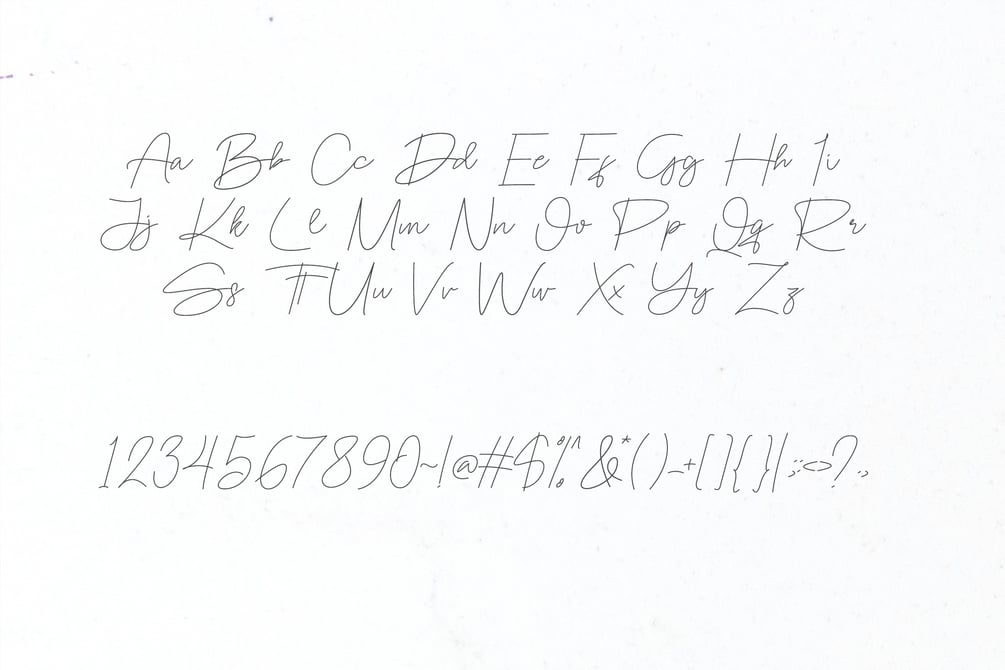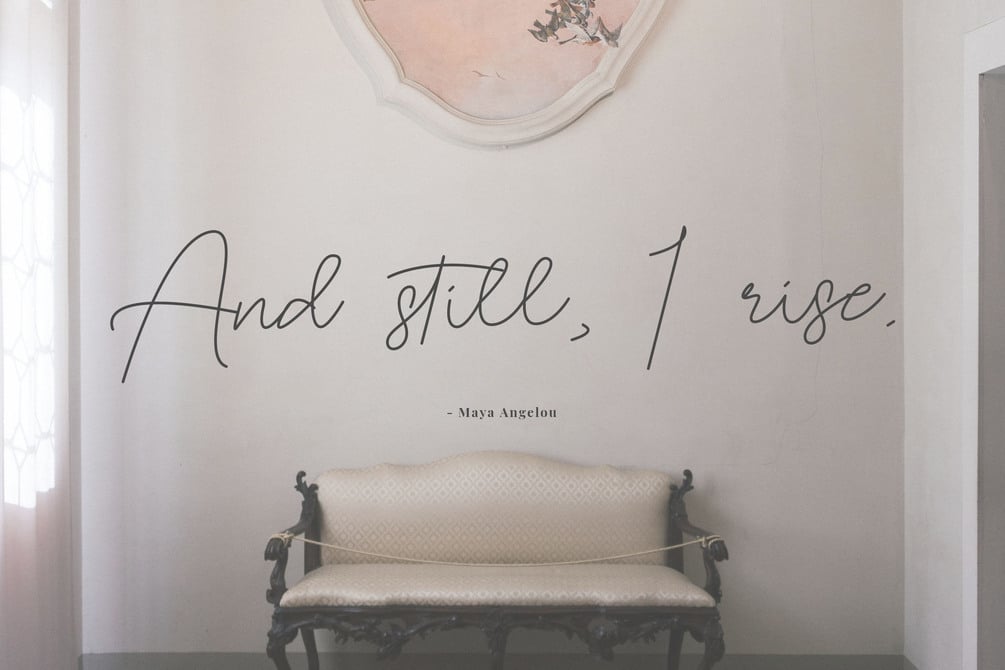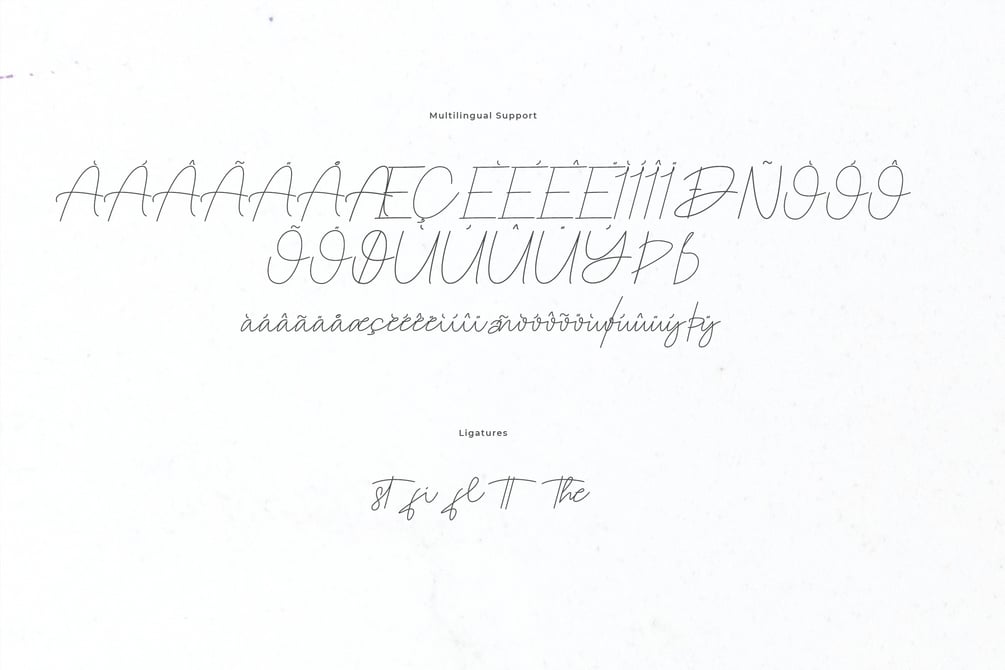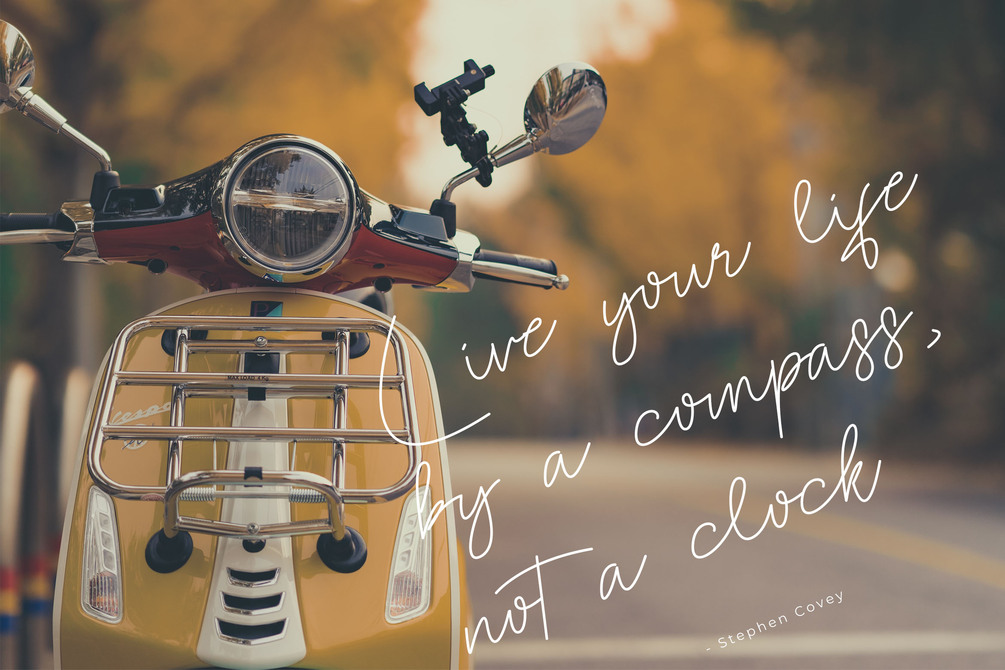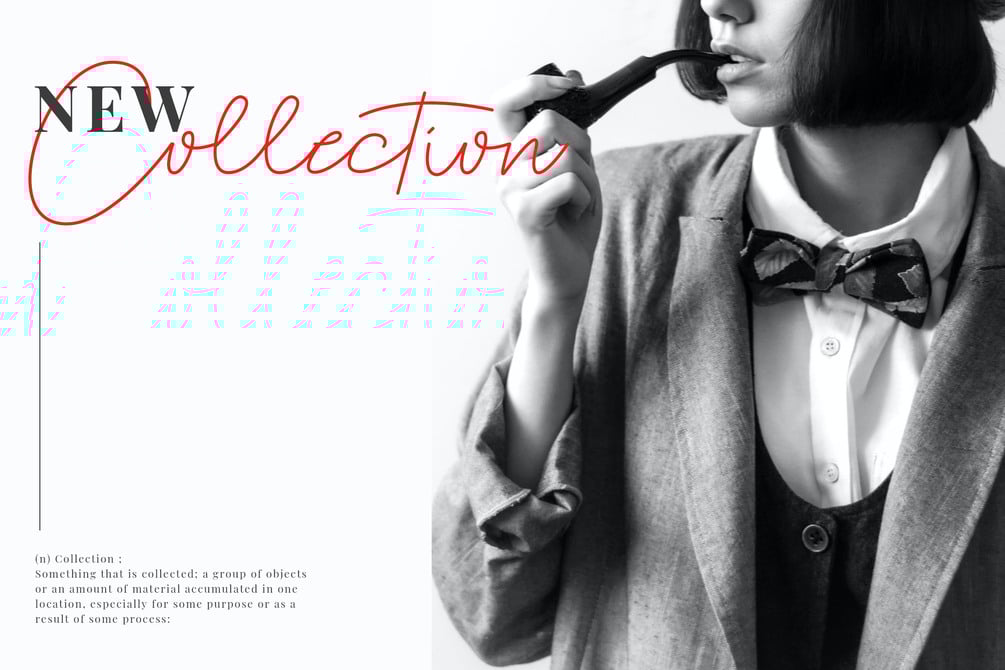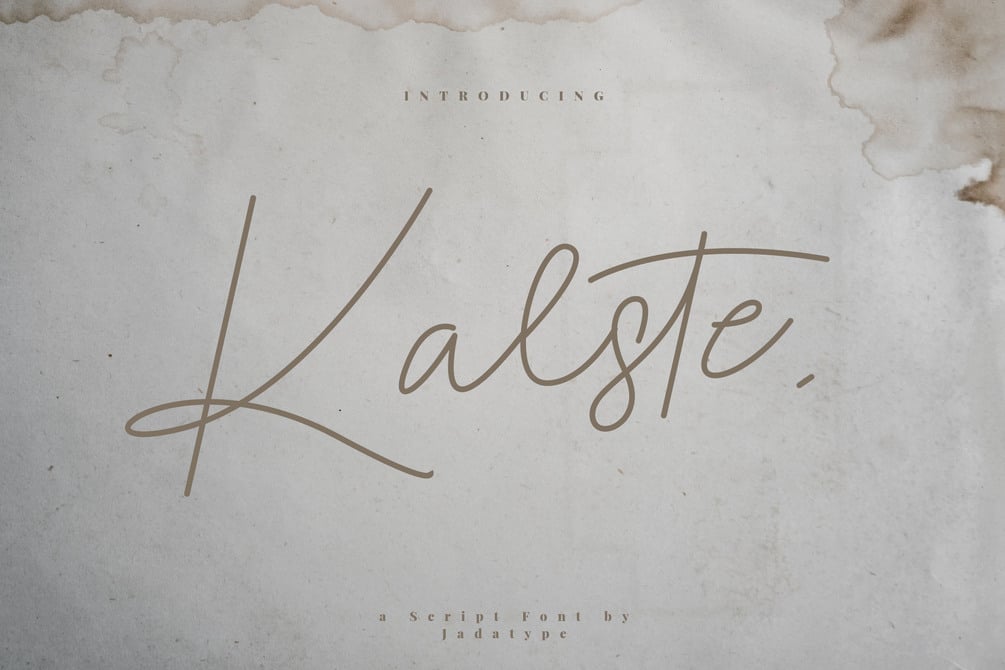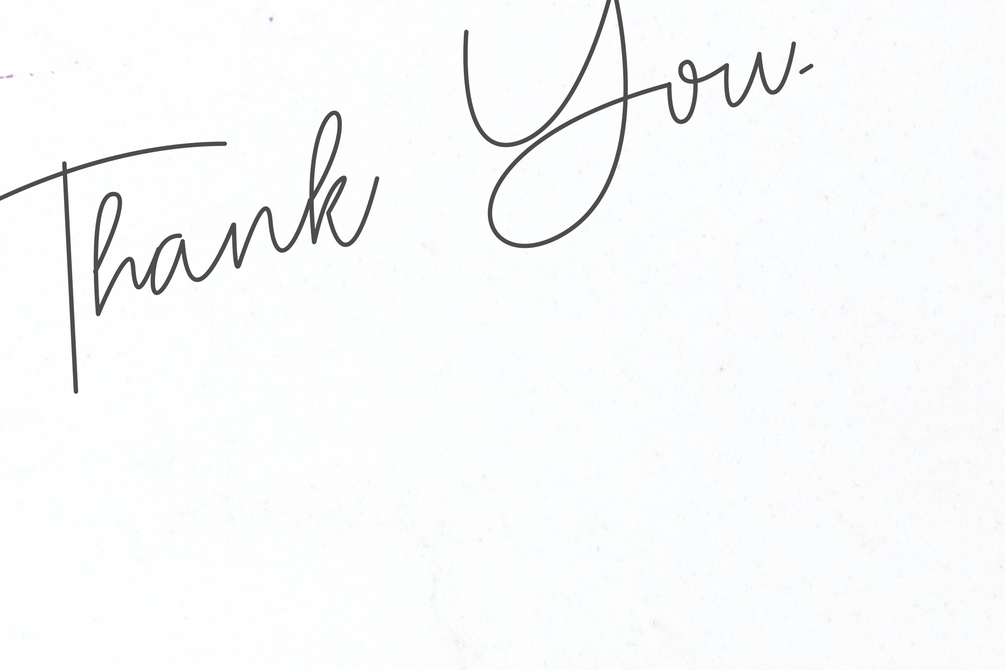
Kalste Font
Kalste is a script font that comes with a monoline style. suitable for product, branding, social media, notes and so on. contains standard English letters, numbers, punctuation, and several accents that support multilingualism.